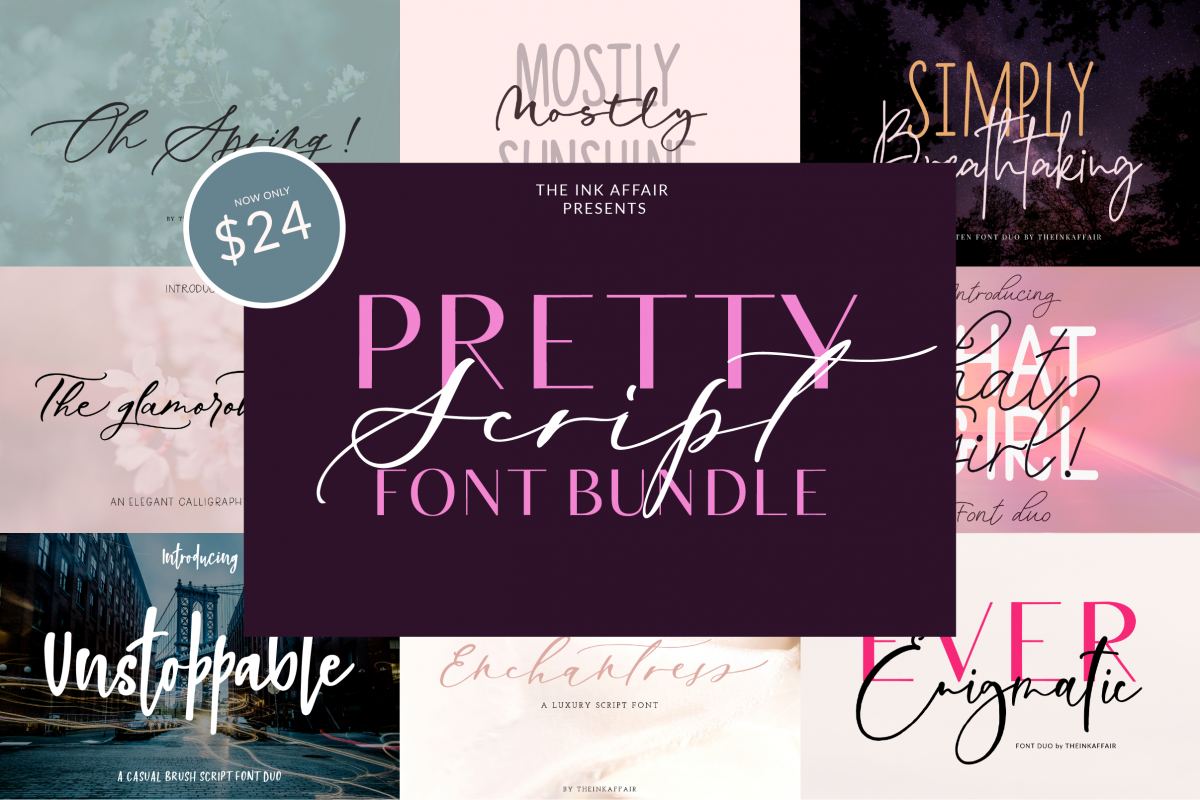
Pretty Script Bundle
This bundle includes some of my most favourite and popular fonts and includes a varied range of styles including brush calligraphy, signature, luxury scripts, hand lettering, sans serif and more. All the fonts can be used to make unlimited products for sale as well as converted to web fonts for your website.Use these fonts to create a logo, branding, wedding invitations, poster or branding, postcard or business card. The possibilities are endless!
What's included:
• Oh Spring
• Mostly Sunshine
• Enchantress
• That Girl
• Simply Breathtaking
• Unstoppable
• The Glamorous Tale
• Ever Enigmatic